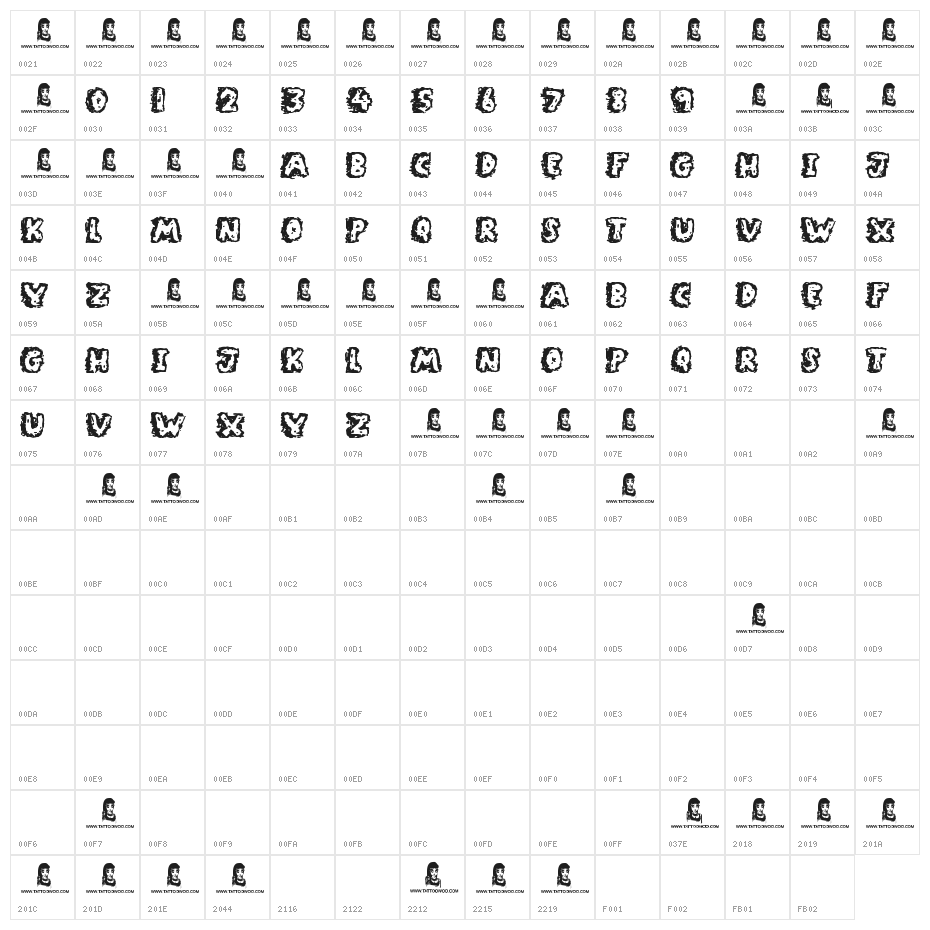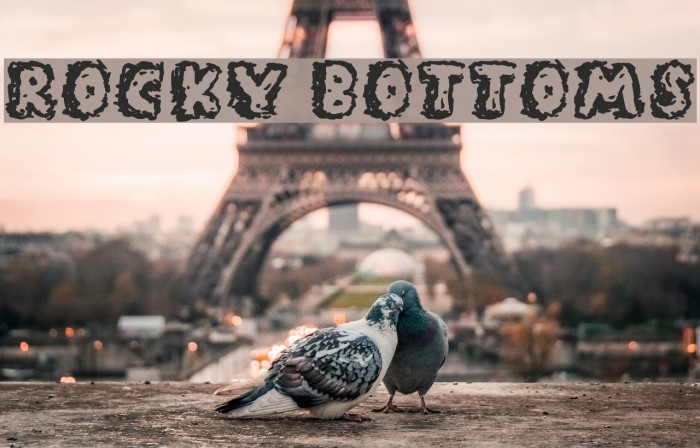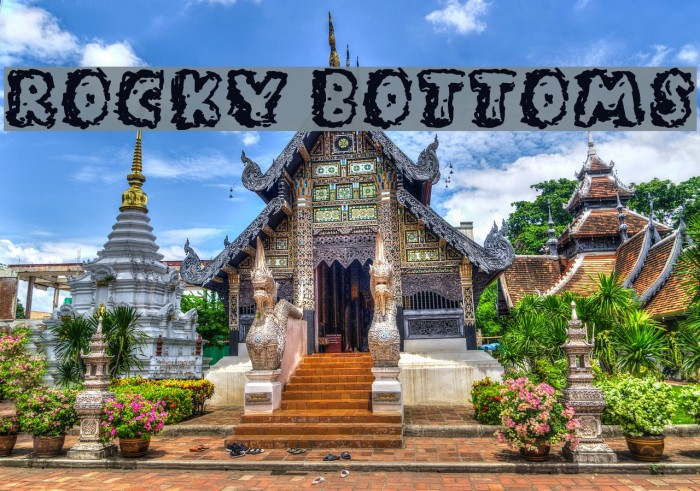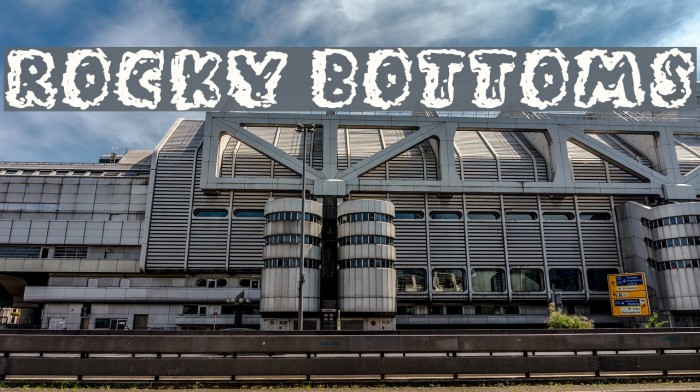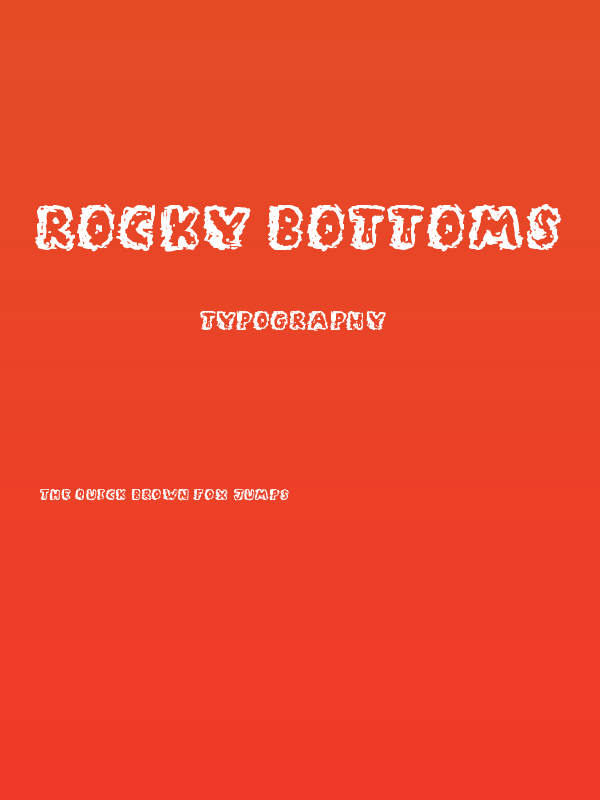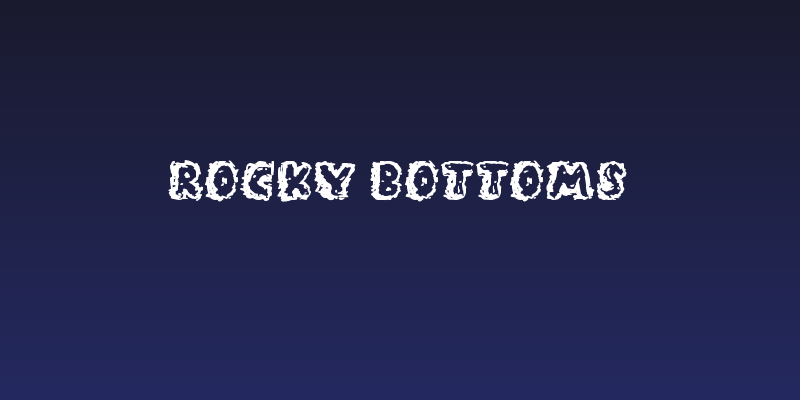
Rocky Bottoms Font
Rocky Bottoms Description
This font features a rugged, textured appearance that mimics the look of rough, rocky surfaces. Each character is bold and heavily stylized, with irregular edges and a distressed look that adds a sense of depth and dimension. The font's unique design makes it stand out, with a playful yet edgy vibe that can add character to any project. The uppercase and lowercase letters maintain a consistent style, with numbers and special characters following the same theme. This font is perfect for projects that require a bold statement or a creative touch.
Proposed ProjectsIdeal for posters, album covers, adventure-themed designs, or branding that requires a bold, edgy look.